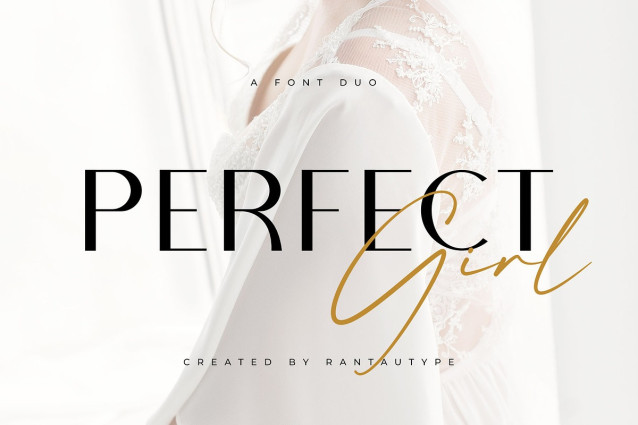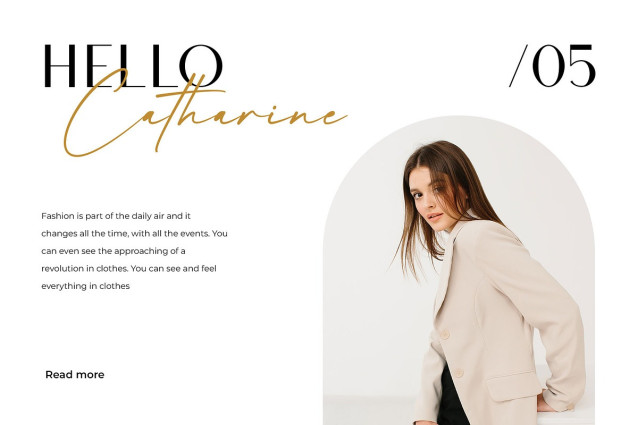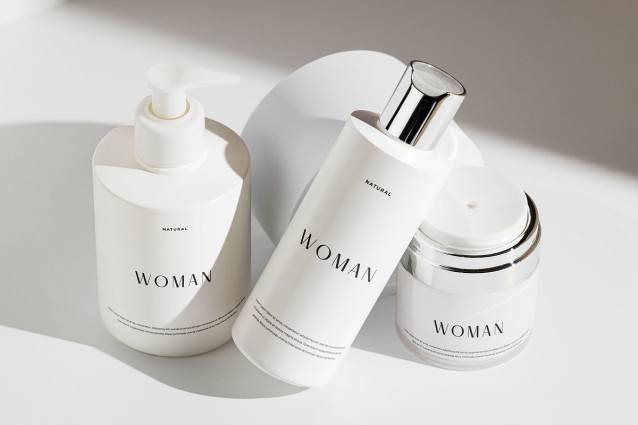
Perfect Girl Font Duo
Perfect Girl Font Duo– a simple, modern and minimalist sans-serif typeface paired with classy handwritten font. British virgin brings a touch of casual elegancy and sophistication to branding.perfect girl is a beautiful choice for any creative endeavor, creating elegant, chic, lifestyle design such as logos, title, cover, branding, display and magazine, and more.  Let’s we make a beuatiful work with us.